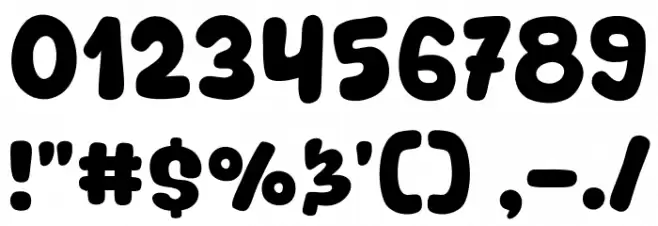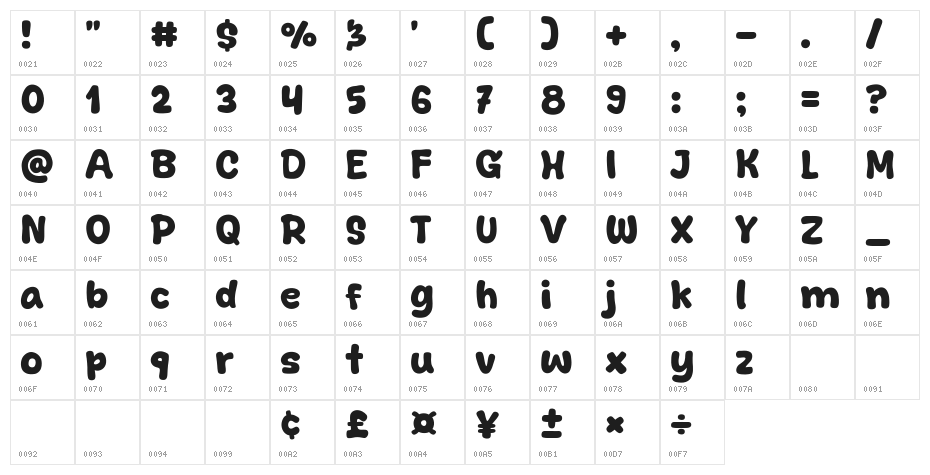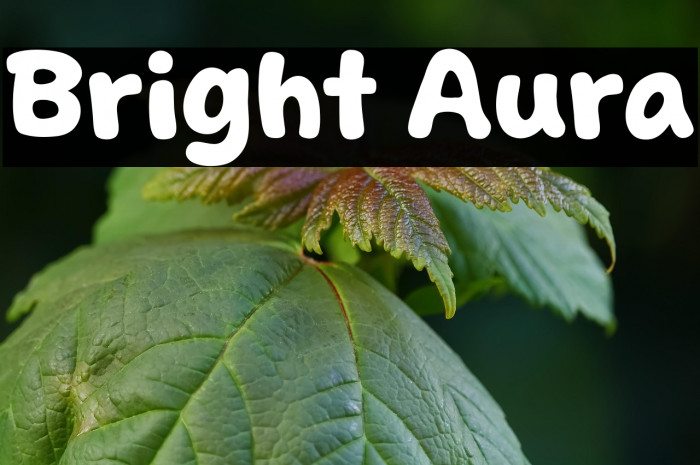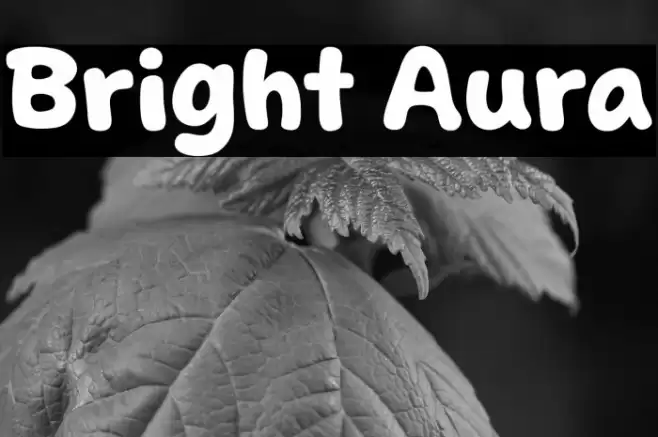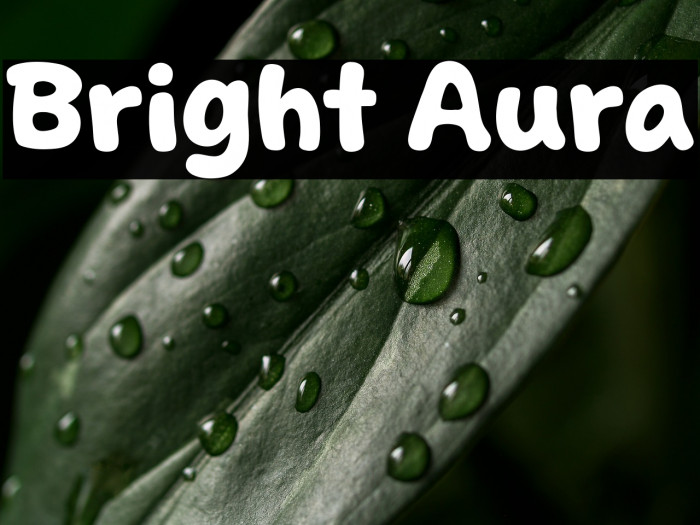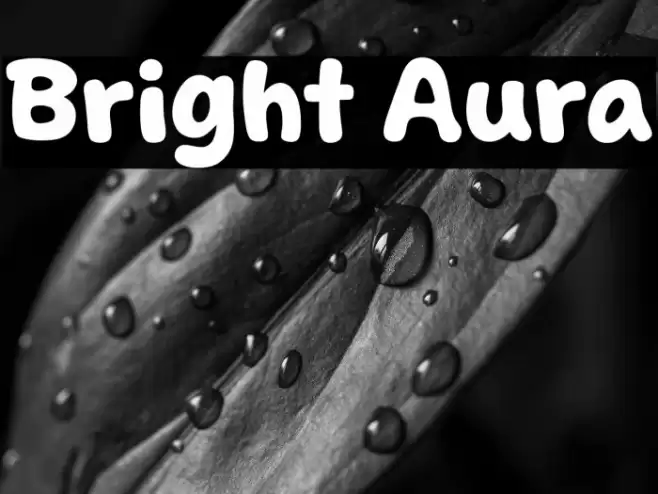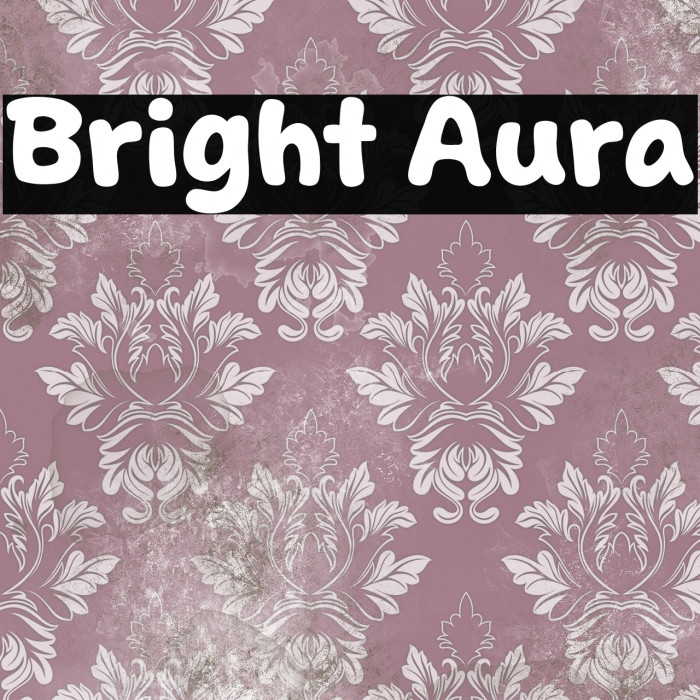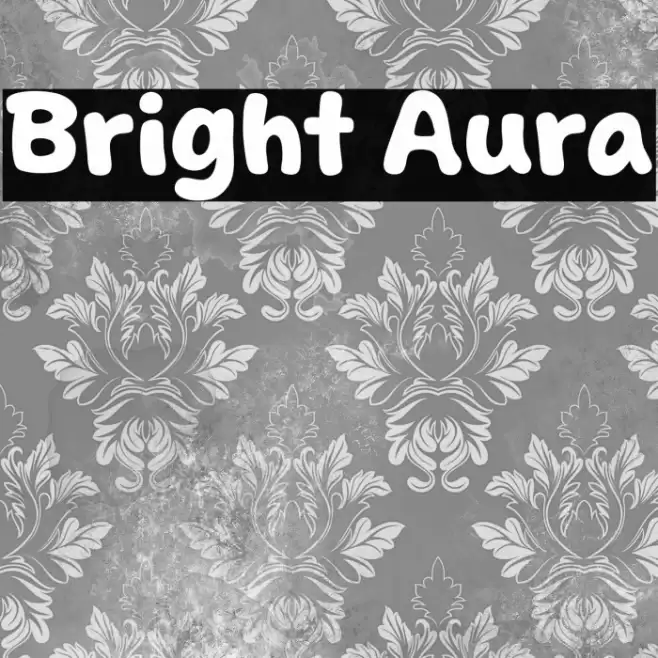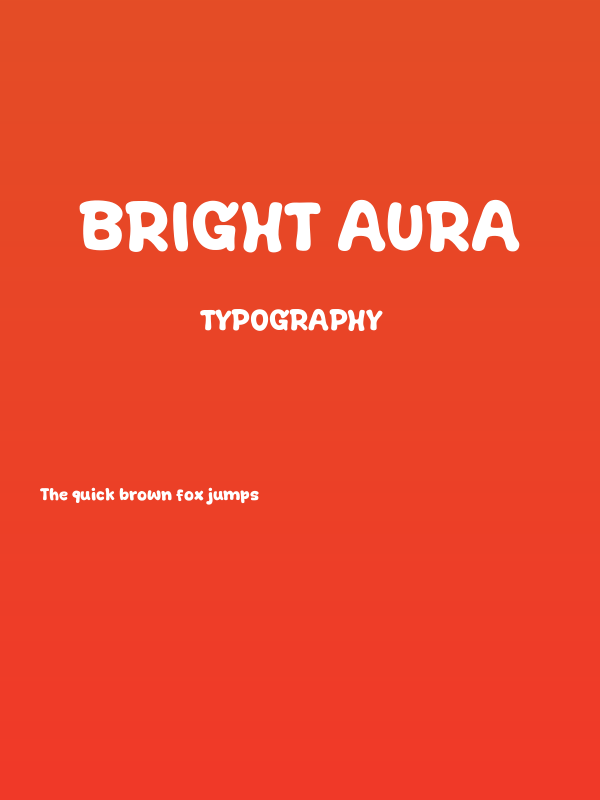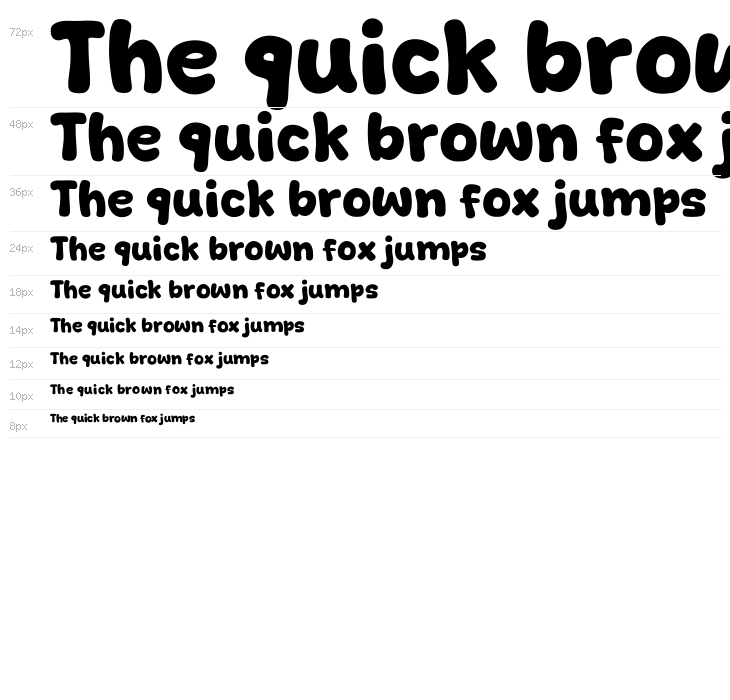
Bright Aura Font
Bright Aura Description
This playful and bold font features rounded, bubbly characters that convey a sense of fun and approachability. The letters are thick and have a consistent stroke width, giving them a strong presence on the page. The overall style is casual and friendly, making it suitable for informal and creative projects. The characters are well-spaced, ensuring readability while maintaining a cohesive look. This font includes a full set of uppercase and lowercase letters, numbers, and a variety of special characters, making it versatile for different design needs.
| Overall Style | Playful |
| Use Case | Headlines, Logos |
| Proposed Projects | Ideal for children's books, playful branding, party invitations, and creative posters. |